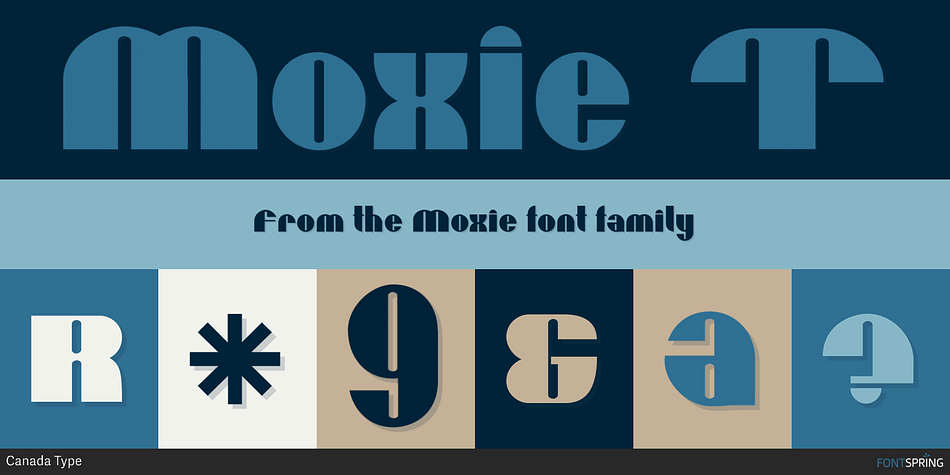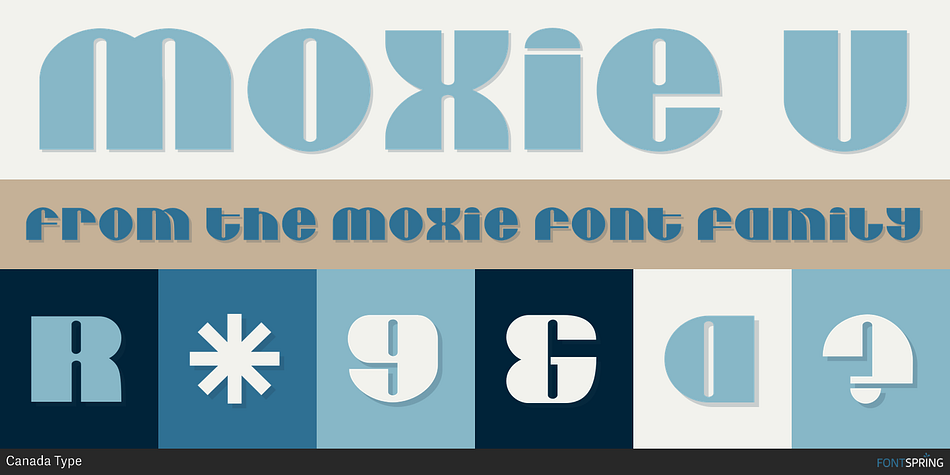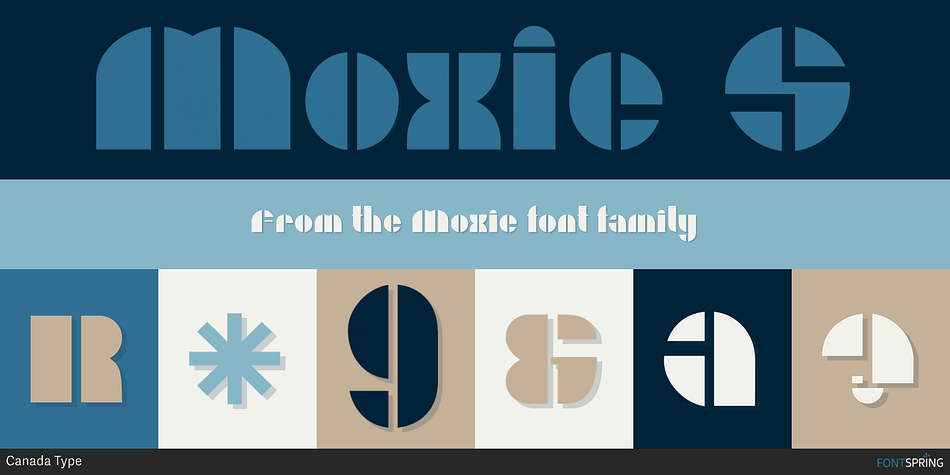
Moxie is a art deco font family. This typeface has four styles and was published by Canada Type.
Moxie is geometry gone dark and funny. Comes with 4 different styles, including a charming stencil and a very outspoken unicase. Ideal for posters, postcards, and display lettering-only designs.